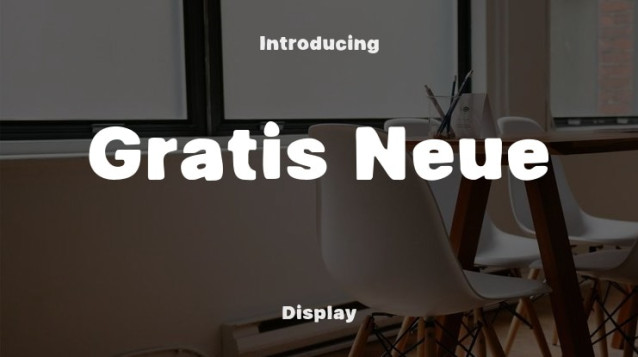
Gratis Neue Font is a chunky, comic, and cartoon display font. With its neat and joyful personality, this font will enhance any project you wish to create!
| Designer Name: | Origin Type |
| Classification: | Display Fonts, Playful / Fun Fonts |